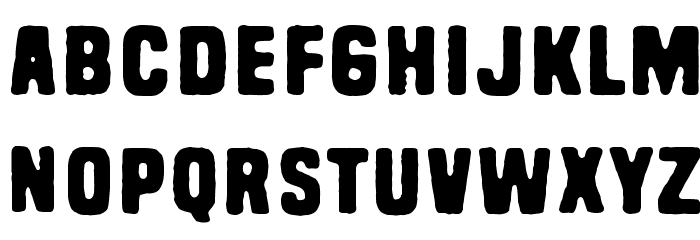
This bold, decorative font features thick, rounded characters with a playful and slightly rugged appearance. The uppercase letters are uniform in height, creating a cohesive look, while the lowercase letters maintain a consistent style that complements the uppercase set. The numbers are bold and easy to read, matching the overall aesthetic of the letters. Special characters are included, each designed with the same bold and rounded style, ensuring they integrate seamlessly with the rest of the font. The font's design is reminiscent of vintage signage or posters, offering a nostalgic feel with a modern twist.
A bold, decorative font with rounded characters and a vintage flair.
- Proposed Projects: Ideal for posters, logos, branding projects, and any design requiring a bold, eye-catching typeface.
- Overall Style: Vintage